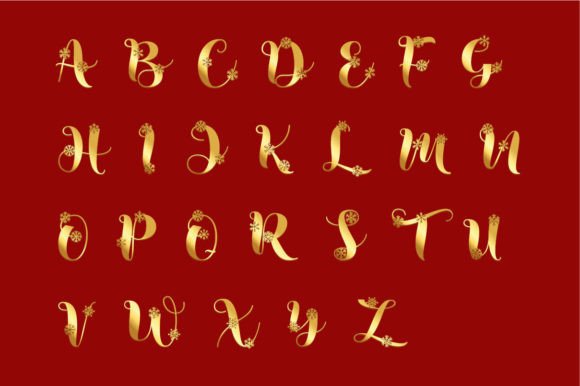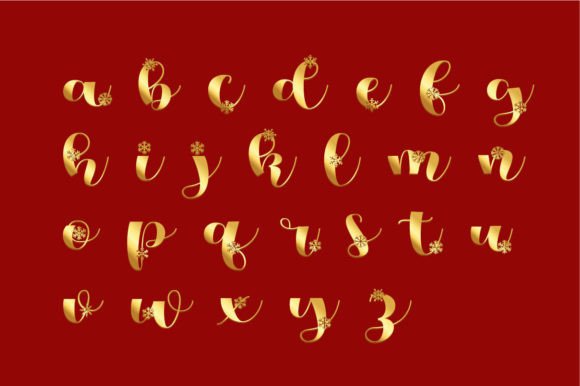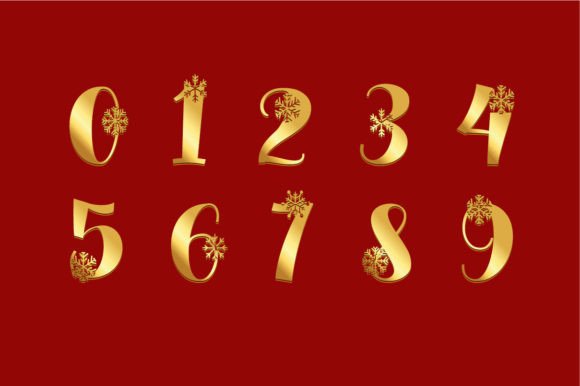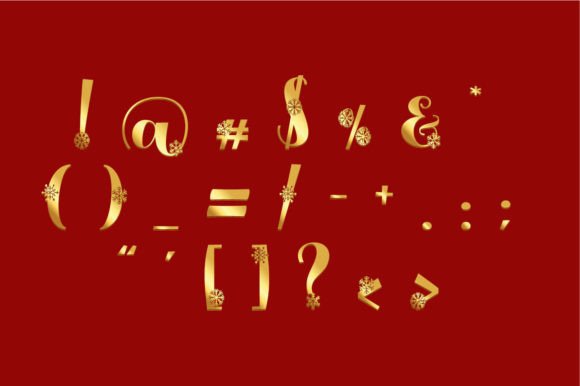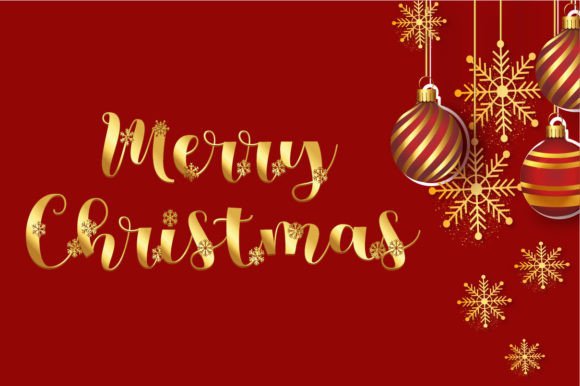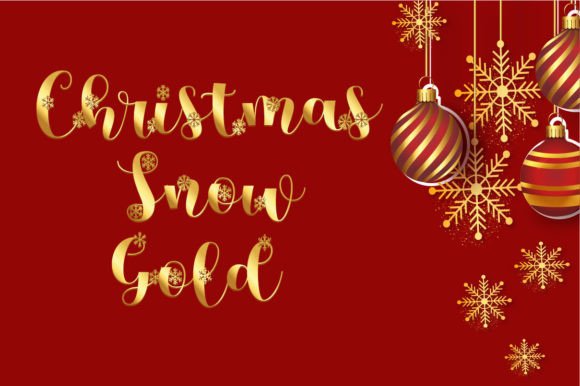
Christmas Snow Gold Font: Elevate Your Holiday Designs with Elegance
As the holiday season approaches, designers and crafters are on the lookout for the perfect elements to make their Christmas projects shine. If you’re searching for a touch of luxury and sophistication, look no further than the Christmas Snow Gold Font. This stylish and elegant color font is designed to bring a festive yet refined feel to your designs, making it an ideal choice for creating stunning holiday-themed projects.
What is Christmas Snow Gold Font?
Christmas Snow Gold is a stylish and elegant color font that features sophisticated, golden letters. This beautiful font is perfect for adding a touch of glamour and festivity to your designs, whether you’re working on Christmas cards, holiday-themed crafts, or festive social media graphics. With its elegant and refined appearance, Christmas Snow Gold Font is sure to elevate your holiday designs and make them stand out.
Key Features of Christmas Snow Gold Font
- Elegant and Sophisticated Design: The Christmas Snow Gold Font boasts a stylish and refined design, making it perfect for creating high-end holiday designs.
- Golden Letters: The font features beautiful, golden letters that add a touch of luxury and festivity to your designs.
- Color Font: As a color font, Christmas Snow Gold allows you to add a pop of color to your designs without the need for additional graphics or images.
Uses for Christmas Snow Gold Font
The Christmas Snow Gold Font is versatile and can be used in a variety of holiday-themed projects, including:
- Christmas Cards: Create stunning Christmas cards with the Christmas Snow Gold Font, adding a touch of elegance and sophistication to your holiday greetings.
- Holiday Crafts: Use the font to create beautiful holiday-themed crafts, such as gift tags, garlands, and decorations.
- Social Media Graphics: Elevate your holiday social media graphics with the Christmas Snow Gold Font, creating eye-catching and engaging posts that will stand out on your followers’ feeds.
- Digital Papers and Invitations: Add a touch of luxury to your digital papers and invitations with the Christmas Snow Gold Font, making them perfect for holiday parties and events.
Tips for Using Christmas Snow Gold Font
To get the most out of the Christmas Snow Gold Font, here are a few tips to keep in mind:
- Pair with Neutral Backgrounds: Pair the font with neutral backgrounds, such as white or light-colored papers, to make the golden letters stand out.
- Use in Combination with Other Fonts: Use the Christmas Snow Gold Font in combination with other fonts to create visually appealing and engaging designs.
The Christmas Snow Gold Font is a beautiful and elegant color font that is perfect for adding a touch of luxury and sophistication to your holiday designs. With its stylish and refined appearance, this font is sure to elevate your Christmas projects and make them stand out. Whether you’re a designer or crafter, the Christmas Snow Gold Font is a must-have for creating stunning holiday-themed designs.